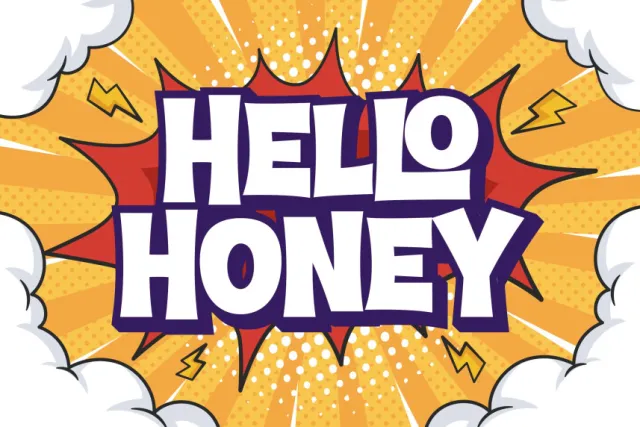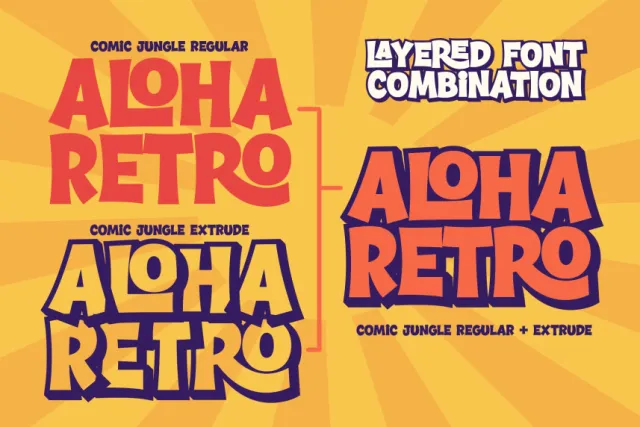
Comic Jungle Font is a playful and adventurous typeface that brings a sense of fun and creativity to any design. Inspired by the lively feel of comics and the wild energy of the jungle, it combines bold shapes with a whimsical touch.
Whether used in large titles or decorative headings, Comic Jungle Font captures attention with its lively personality.
This makes it a perfect choice for projects that need a vibrant and eye-catching style. This font works wonderfully for posters, children’s books, invitations, games, packaging, and other creative projects.
It performs beautifully in both print and digital formats, making it a versatile option for creative professionals and hobbyists alike. Its fun character design brings a sense of excitement to every project.
| Type | Display / Cartoon |
| Suitable For | Children’s Books, Posters, Invitations, Game Graphics, Creative Branding |
| Font Style | Playful, Bold, Fun |
| Special Feature | Comic-Inspired Letterforms with a Jungle Theme |
One of the strengths of its versatility. It can be used for children’s content, adventurous branding, themed graphics, and anything that needs a cheerful and bold visual style. The font provides the perfect balance between playfulness and clear readability.